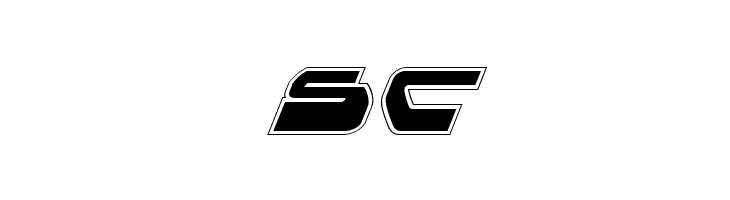
Gemcut Bold Italic Font
- Font: Gemcut Bold Italic
- Weight: Bold Italic
( Fonts by Niels Bonnevie )
A bold, geometric font with a futuristic and industrial design.